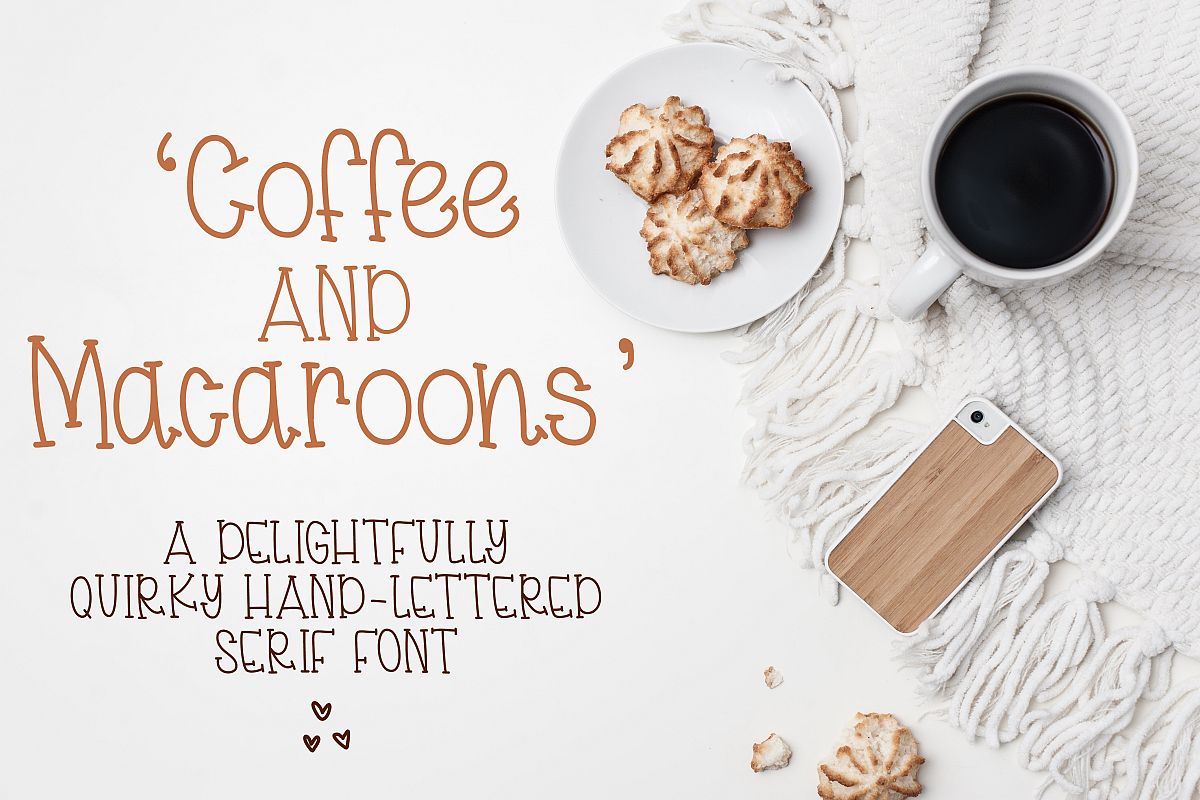
'Coffee & Macaroons' is a hand lettered serif font that is delightfully quirky.
Comes with Uppercase, Lowercase, Numeral, Punctuation & a few neat dingbats